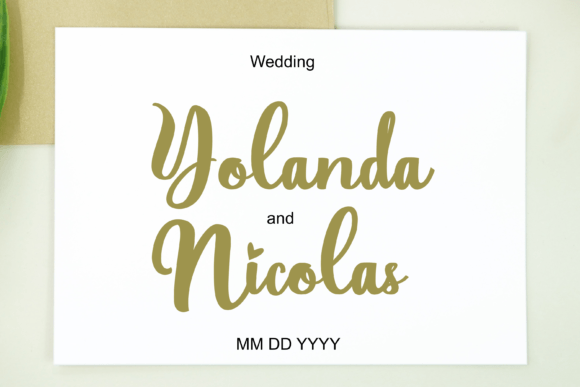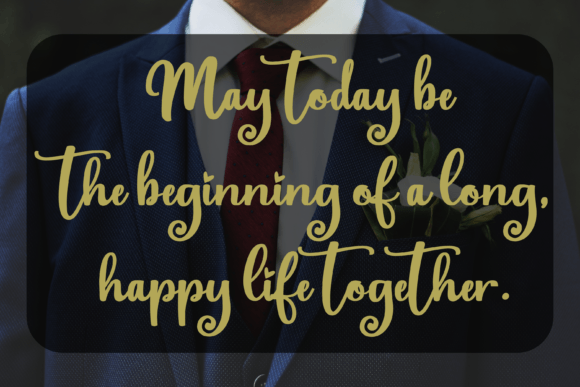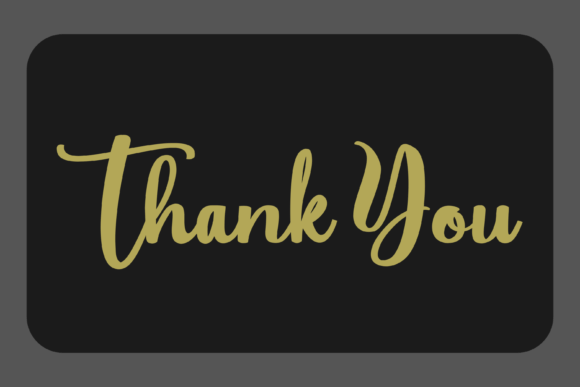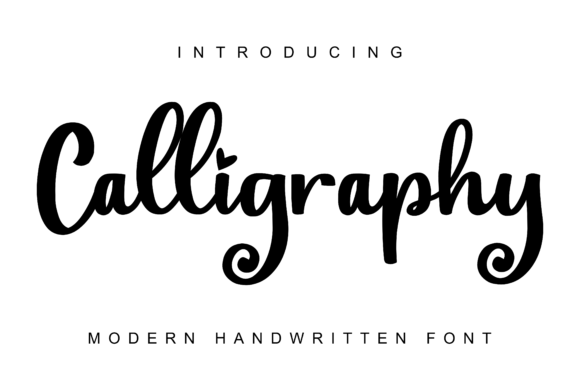
Elevate Your Designs with the Timeless Elegance of Calligraphy Fonts
Calligraphy, an art form that has been a cornerstone of beautiful handwriting for centuries, has made a significant comeback in the world of design. The Calligraphy Font is a trendy, handwritten font that embodies a contemporary atmosphere while maintaining impeccable form, drawing inspiration from timeless classic calligraphy. This elegant font is designed to add a touch of sophistication and class to any design project, making it a favorite among designers and crafters alike.
The Art of Calligraphy: A Brief History
Calligraphy, which comes from the Greek words “kallos” meaning beauty and “graphein” meaning to write, is the art of beautiful handwriting. It has been a highly respected art form across various cultures, used in important documents, artistic works, and even religious texts. Over the years, calligraphy has evolved, with different styles and techniques emerging in different parts of the world. Today, it continues to inspire designers and artists, influencing many aspects of visual design.
Introducing the Calligraphy Font
The Calligraphy Font is a modern take on traditional calligraphy, designed to bring an air of elegance and refinement to your designs. This font is characterized by its fluid strokes, harmonious letter spacing, and beautiful ligatures, which give it a natural, handwritten feel. Whether you’re working on a branding project, a wedding invitation, a packaging design, or a digital project, the Calligraphy Font is versatile enough to fit a wide range of creative needs.
Key Features of the Calligraphy Font
- Contemporary yet Classic: The Calligraphy Font strikes the perfect balance between modern design and classic elegance, making it suitable for both contemporary and traditional projects.
- Impeccable Form: Each letter is carefully crafted to ensure that the font maintains a high level of readability while showcasing beautiful calligraphic details.
- Elegance and Versatility: From luxury branding to elegant stationery, and from web design to print materials, this font can elevate any design with its sophisticated charm.
- User-Friendly: Designed with the user in mind, the Calligraphy Font is easy to integrate into various design projects, supporting a wide range of languages and featuring multiple weights for added versatility.
Applications of Calligraphy Fonts in Design
The Calligraphy Font can be applied in numerous design contexts, including:
- Branding and Logo Design: Add a touch of elegance and professionalism to your brand identity.
- Wedding and Event Stationery: Create beautiful, bespoke invitations, menus, and programs that set the tone for your special day.
- Packaging Design: Elevate your product packaging with a sophisticated look that stands out on the shelves.
- Digital Design: Enhance your website, social media graphics, and digital marketing materials with a font that exudes class and refinement.
Tips for Using Calligraphy Fonts Effectively
To make the most of the Calligraphy Font in your designs, consider the following tips:
- Pair with Simplicity: Balance the elegance of the calligraphy font with simpler fonts in your design to avoid visual overload.
- Consider Readability: Ensure that your chosen font size and color provide sufficient contrast for readability, especially for body text.
- Experiment with Ligatures: Take advantage of the font’s ligatures to add a unique touch to your typography.
- Limit Usage: Use the calligraphy font judiciously, reserving it for headings, titles, or key messages to maximize impact.
The Calligraphy Font offers a perfect blend of timeless elegance and modern sophistication, making it an invaluable asset for designers and crafters looking to add a touch of class to their projects. With its impeccable form, versatility, and user-friendly design, this font is sure to elevate your designs and leave a lasting impression on your audience. Whether you’re creating a luxury brand identity, a beautiful wedding invitation, or an engaging digital project, the Calligraphy Font is your gateway to stunning, professional-grade typography.